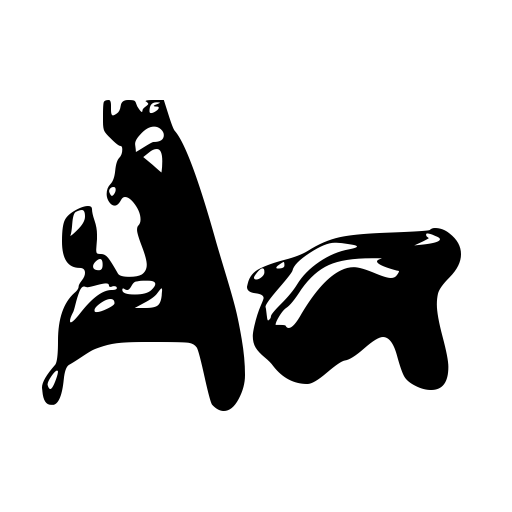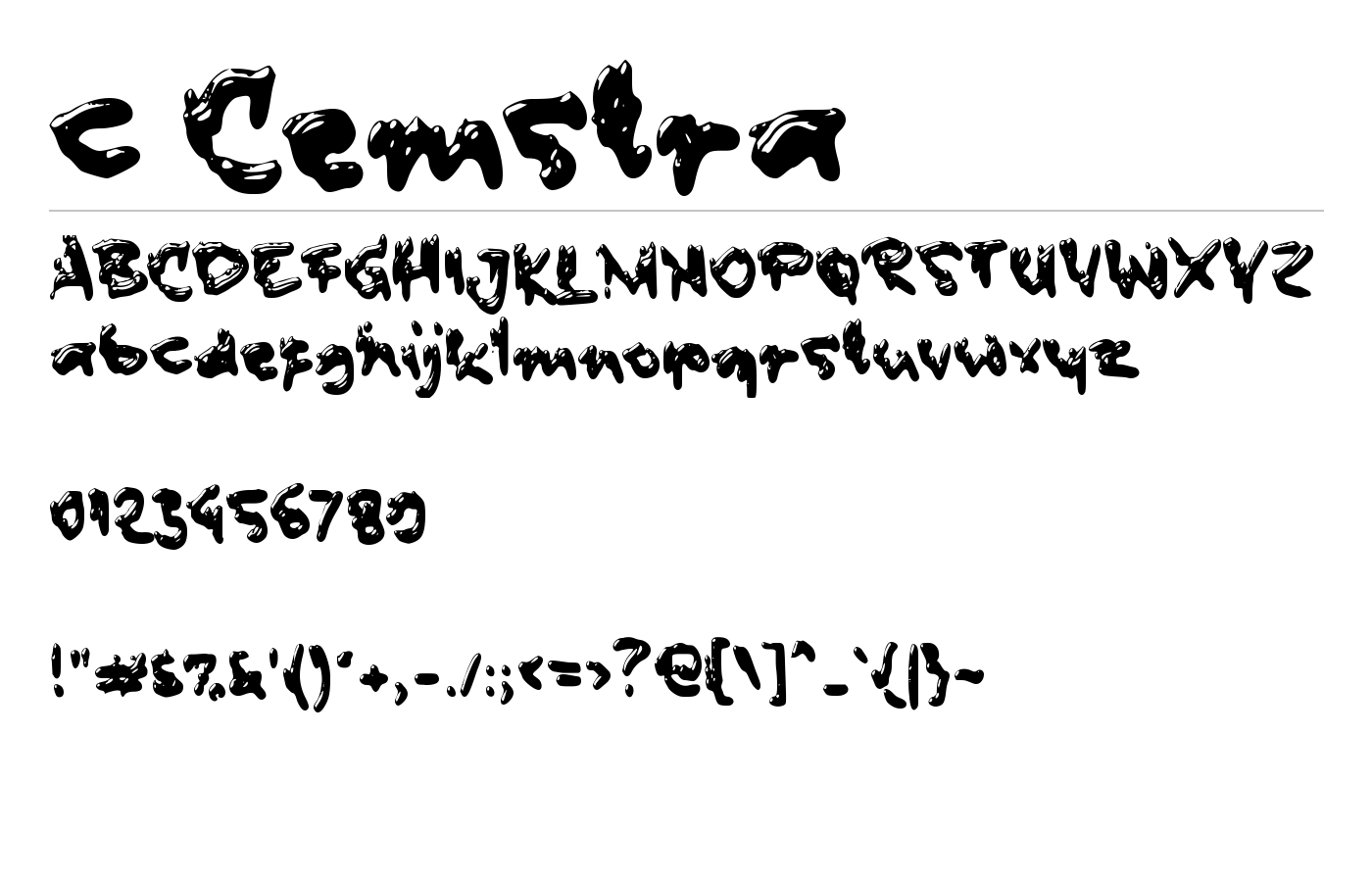
Cemstra is a bold, playful handwritten font with an irregular and organic texture that gives it a unique, almost gooey appearance. Its casual, artistic style makes it ideal for creative and youthful designs, such as posters, logos, or packaging that want to stand out with a fun and informal vibe. This font works well in display sizes where its quirky character can shine and add personality to any project.
c Cemstra Font
About c Cemstra Font